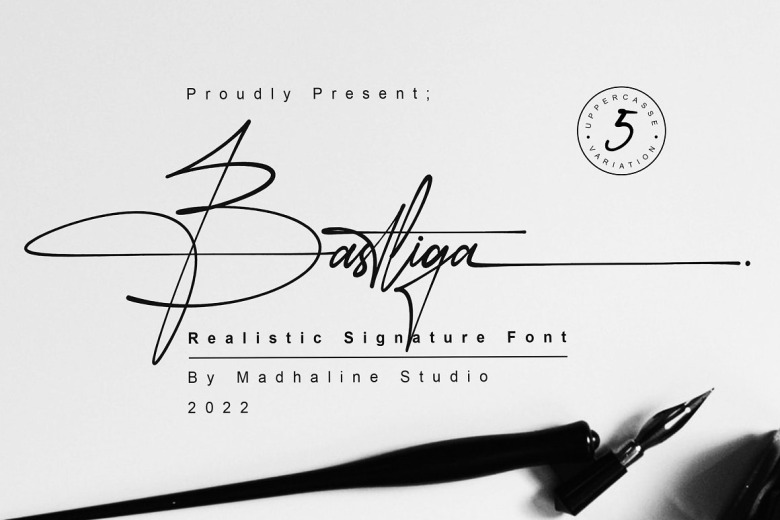
Bastliga Font
Bastlian font is a signature font, as I said above, Bastlian come with high quality and with a signature characteristic, it is handmade because of the manual strokes; also, its have a unique look of a signature. It is the modern font that has a neat and clean touch in it. Angellica Script font by Azetype Studio, This is a truly elegant and luxury script with natural handwriting, Angellica Script is a beautiful signature font.
The combination of a handwritten script and geometric display face in Bastlgiag to perfect present your work or projects, great for logo and branding, photography, watermark, social media posts, advertisements, logos & branding, invitation, product designs, label, stationery, wedding designs, product packaging, special events or anything that need signature taste.
Bastliga Signature Script Font